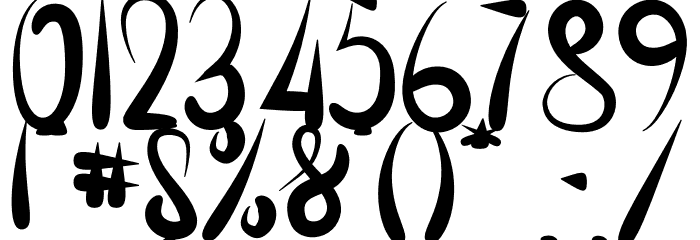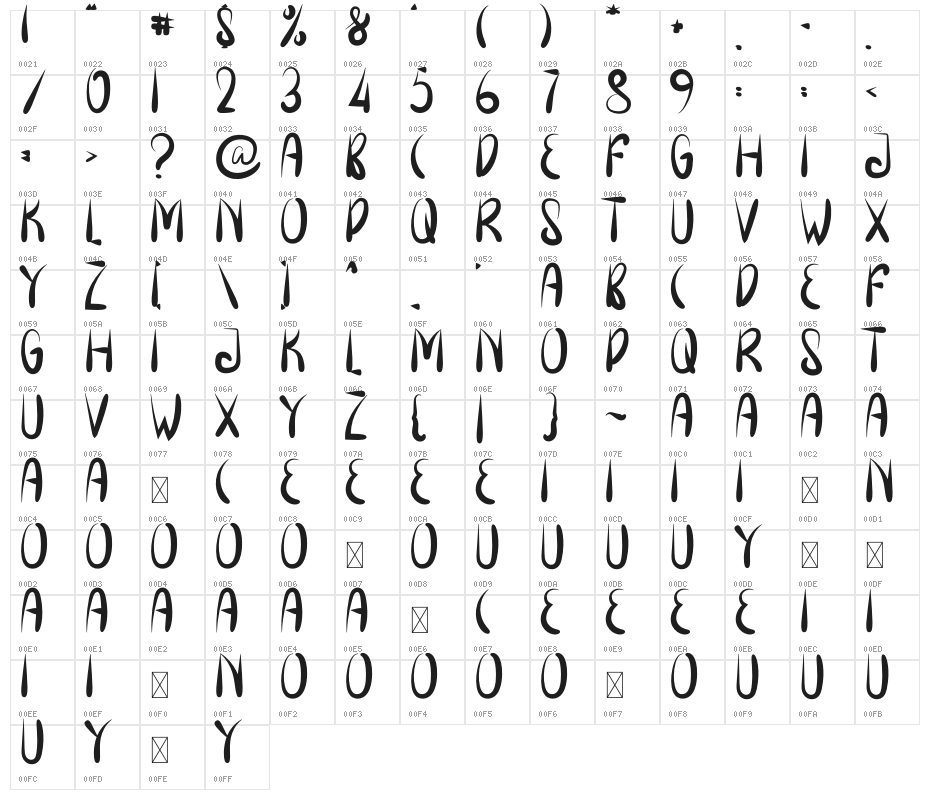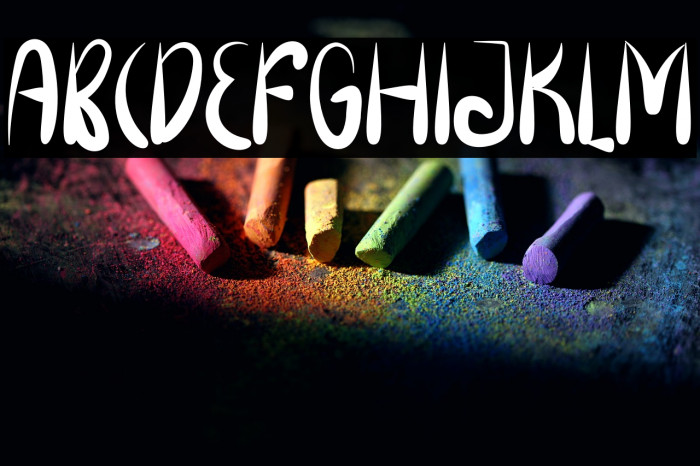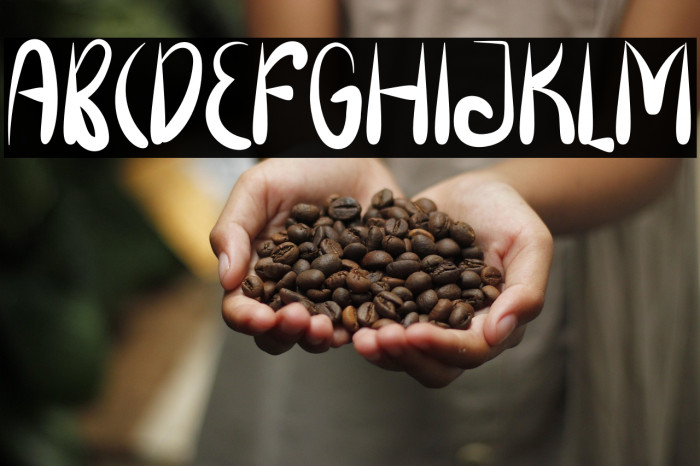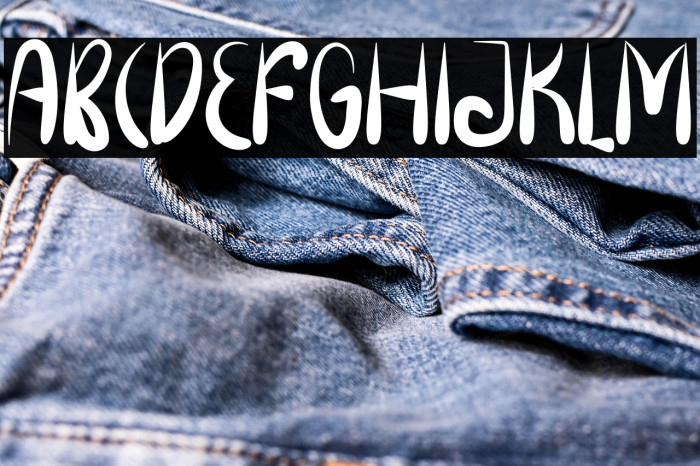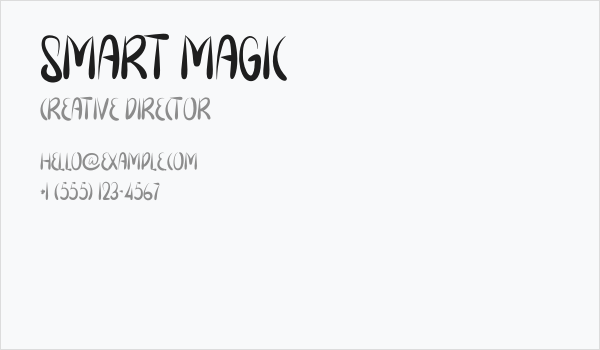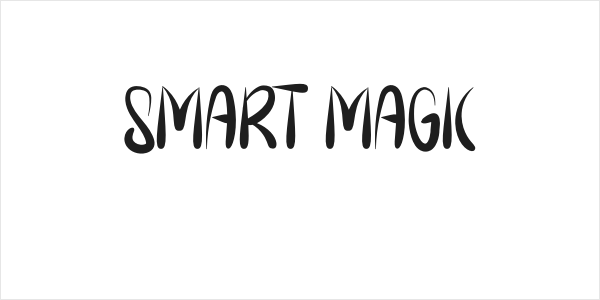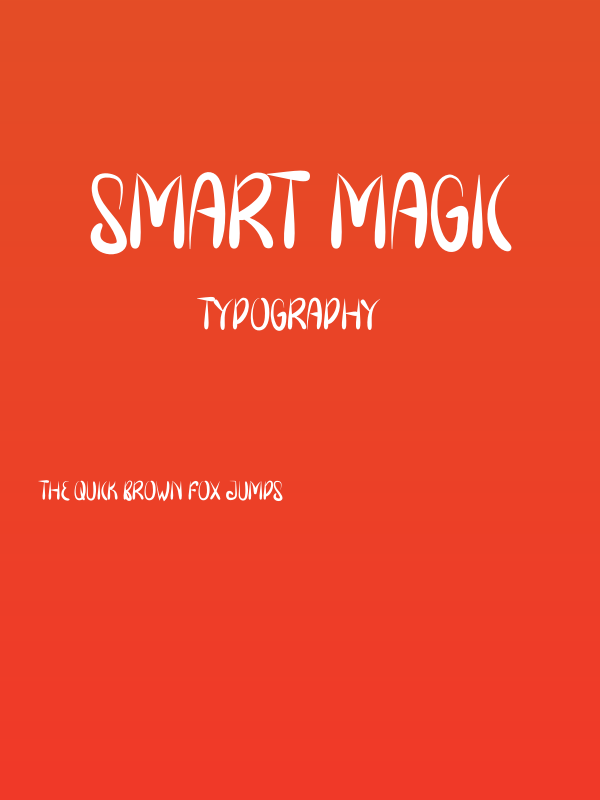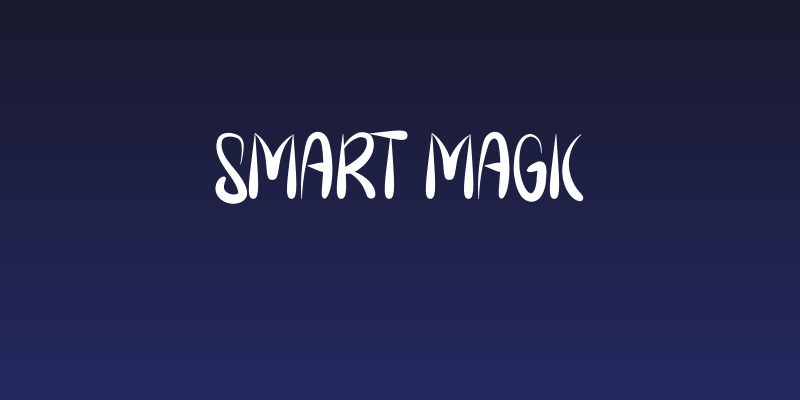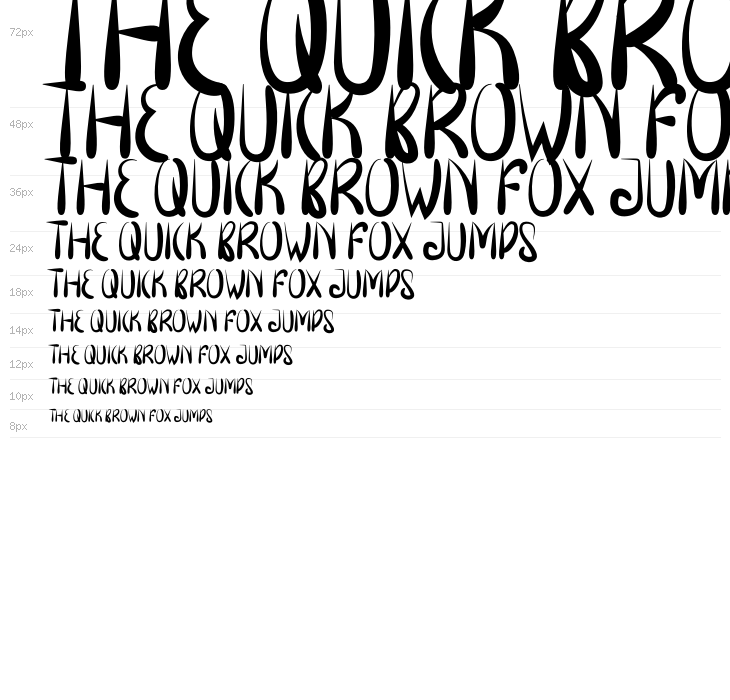
Smart Magic Font
Smart Magic Description
This font features a dynamic and playful style with elongated, flowing strokes that give it a whimsical and artistic appearance. The characters are bold and have a hand-drawn quality, with varying stroke widths that add a sense of movement and energy. The uppercase letters are tall and narrow, while the lowercase letters maintain a consistent style, enhancing the font's cohesive look. The numbers and special characters are equally expressive, maintaining the font's overall lively aesthetic. This font is ideal for projects that require a touch of creativity and flair.
| Proposed Projects | Ideal for creative projects such as posters, invitations, and branding that require a whimsical touch. |